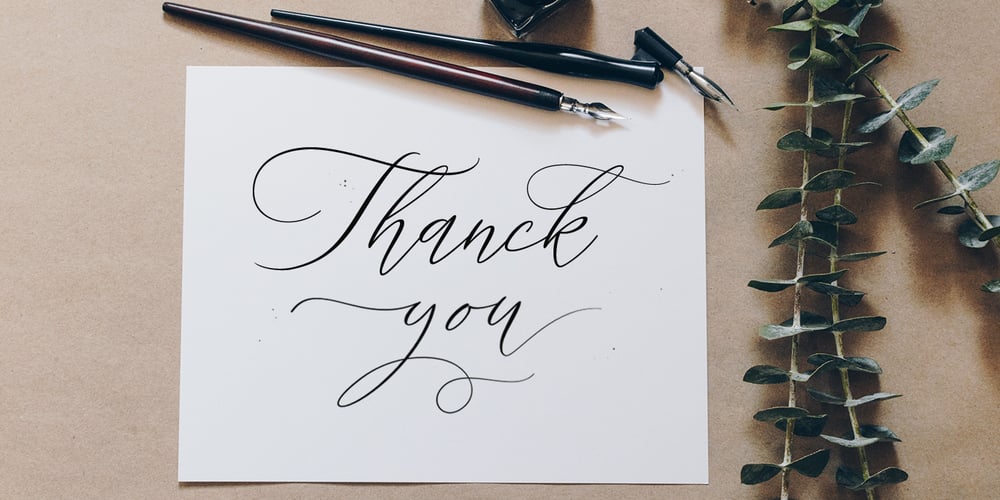
Beauty Flowers Font Family was designed by Pavel Larin and published by Larin Type Co. Beauty Flowers contains 1 styles and family package options. Beauty Flowers – A romantic calligraphy script font. This font will delight you with its romantic charm, elegance, lightness and a variety of alternative substitutes that will help you make your design project unique. This font also includes swashes that will perfectly complement your design.